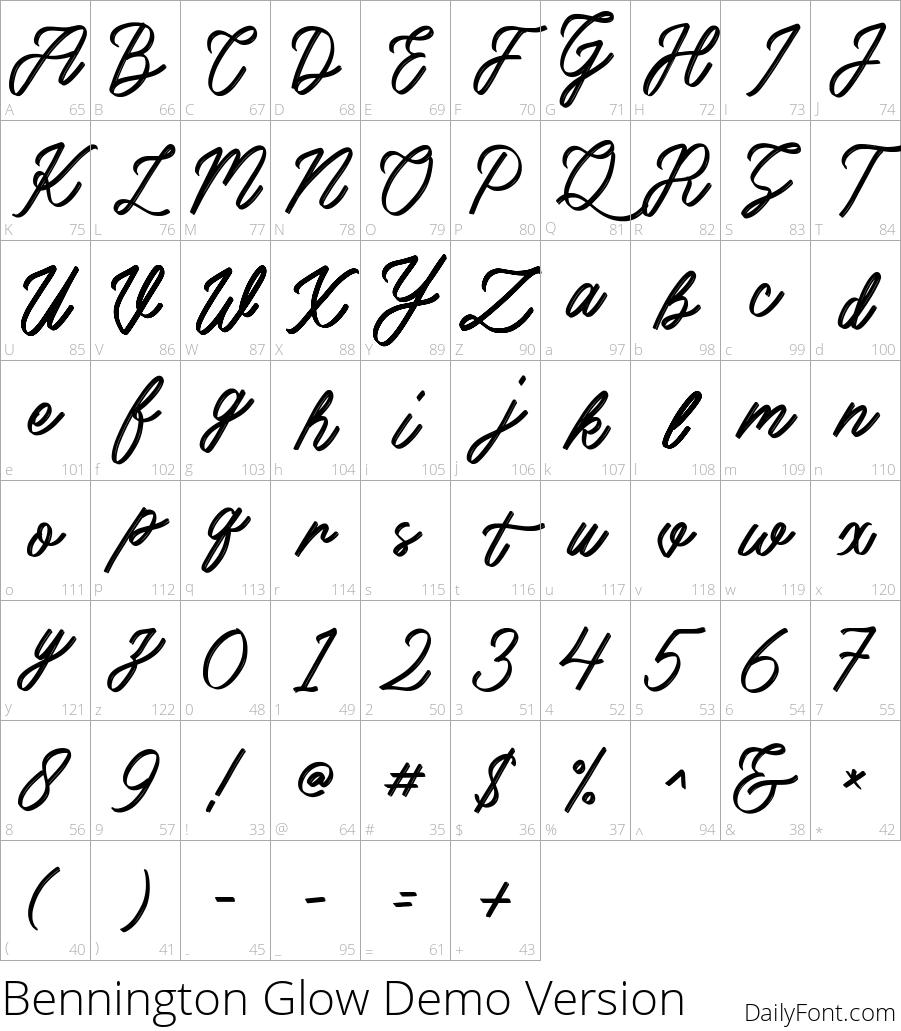
Bennington Glow
Looking for a elegant and flowing handwritten font that exudes a touch of sophistication? Look no further! This stunning font is reminiscent of classic romantic scripts, but with a modern twist. Its beautiful brush-written strokes evoke the feeling of a bygone era, perfect for adding a layer of refinement to your designs.
With its fluid lines and subtle flair, this font is ideal for creating a sense of luxury and sophistication in any project. Whether you're designing a wedding invitation, a packaging label, or a blog post header, this font will add a touch of whimsy and charm that's sure to captivate.
The font's unique blend of elegance and playfulness makes it perfect for creative projects where you want to convey a sense of joy and celebration. It's also great for adding some personality to your text-based designs, making them stand out from the crowd.
If you're looking for a font that will add a dash of glamour and sophistication to your work, this is the one!